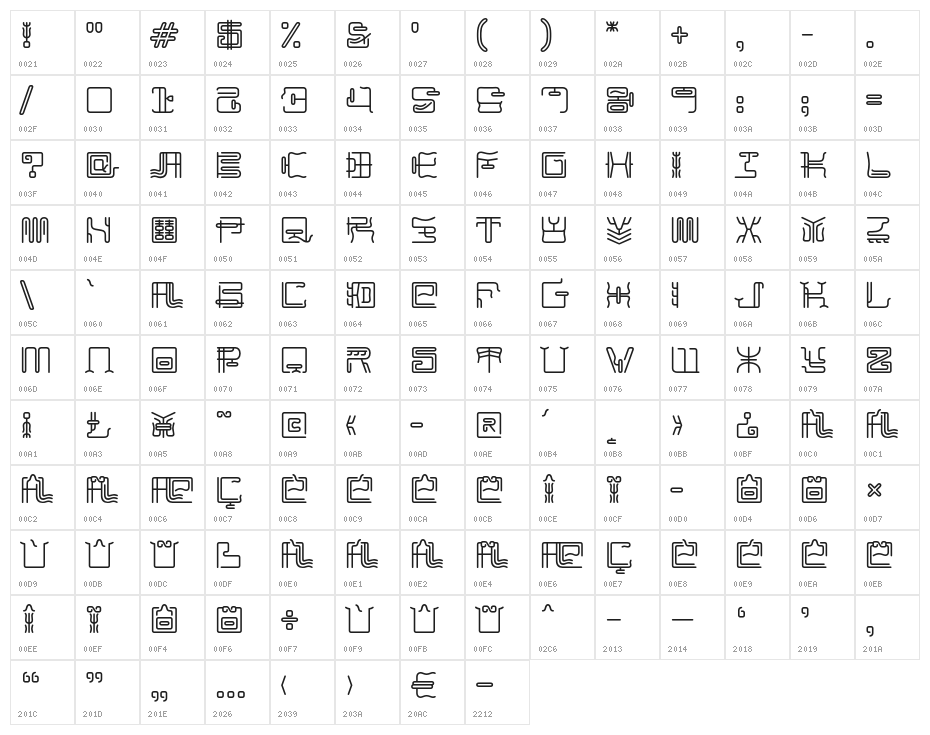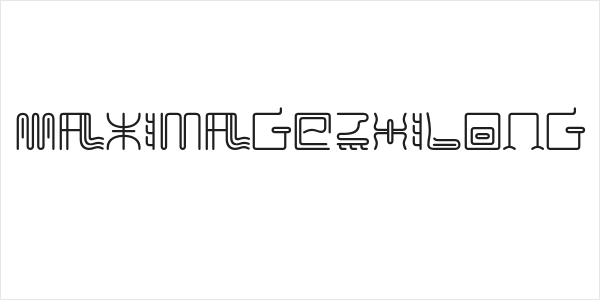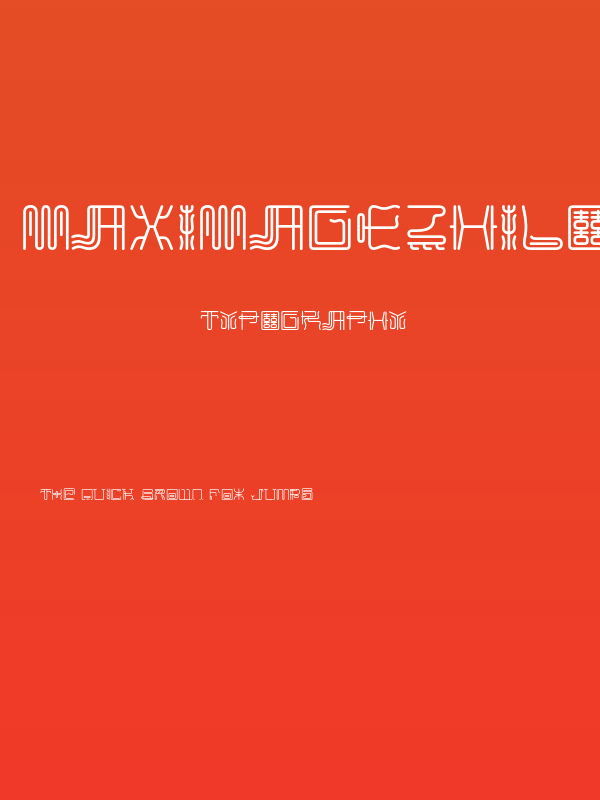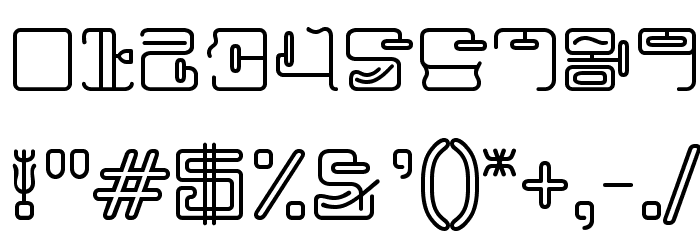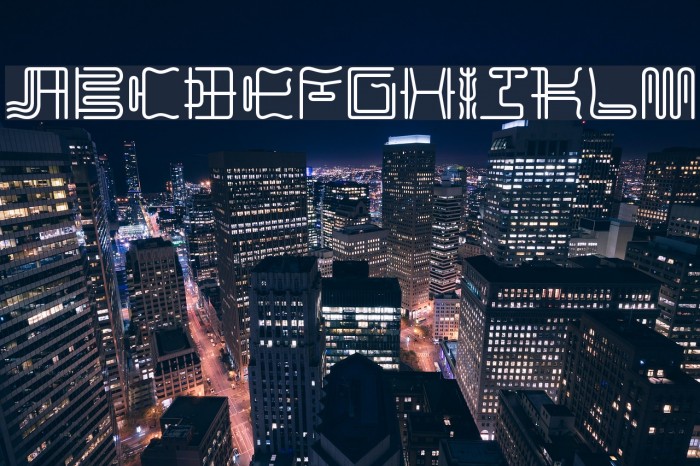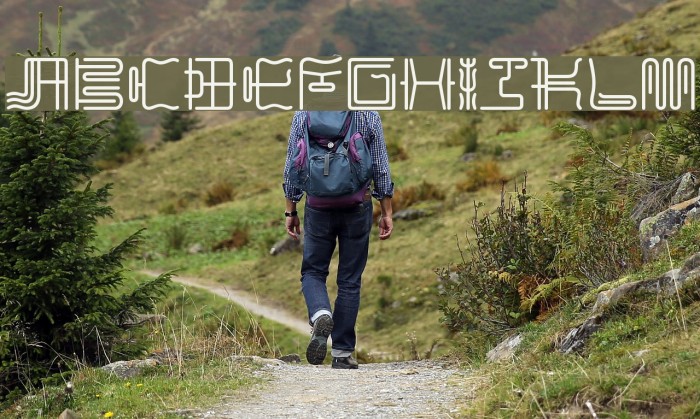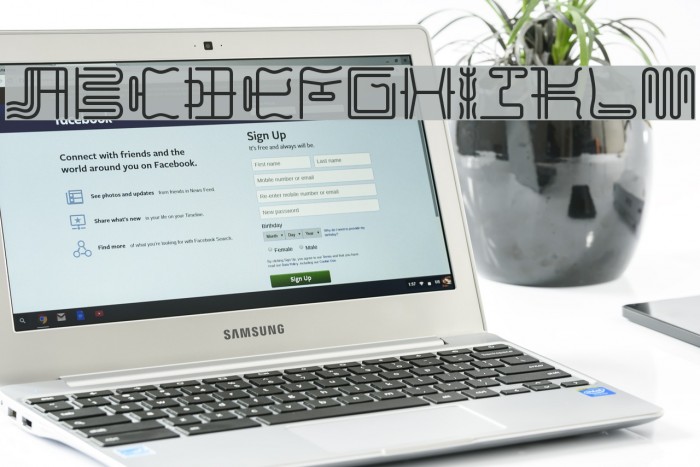
MaximageZhiLong Font
MaximageZhiLong Description
This font features a highly decorative and intricate design, characterized by its unique, maze-like patterns within each character. The lines are bold and consistent, creating a striking visual impact. Each letter and number is crafted with a series of interlocking lines, giving it a futuristic and almost digital appearance. The special characters follow the same design ethos, maintaining a cohesive look throughout. This font is best suited for projects that require a bold statement or a modern, tech-inspired aesthetic.
| Overall Style | Futuristic, Decorative |
| Proposed Projects | Ideal for sci-fi themed posters, modern art projects, tech-related branding, or any design requiring a bold, futuristic look. |